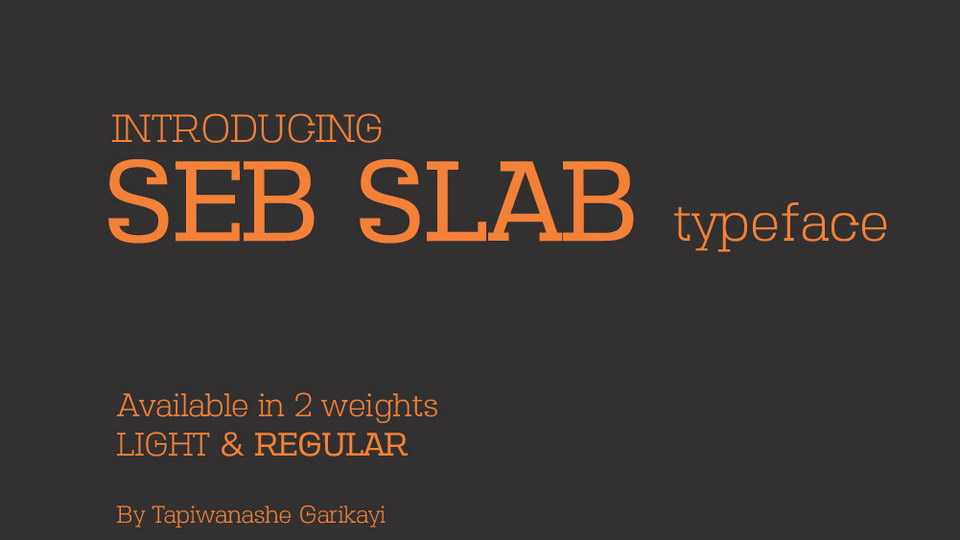
Download Seb Slab typeface, a slab serif font family with its own personality in Light and Regular weights. Seb Slab font works great for texts and titles, can be used for editoral purposes.
Designer: Tapiwanashe Sebastian Garikayi